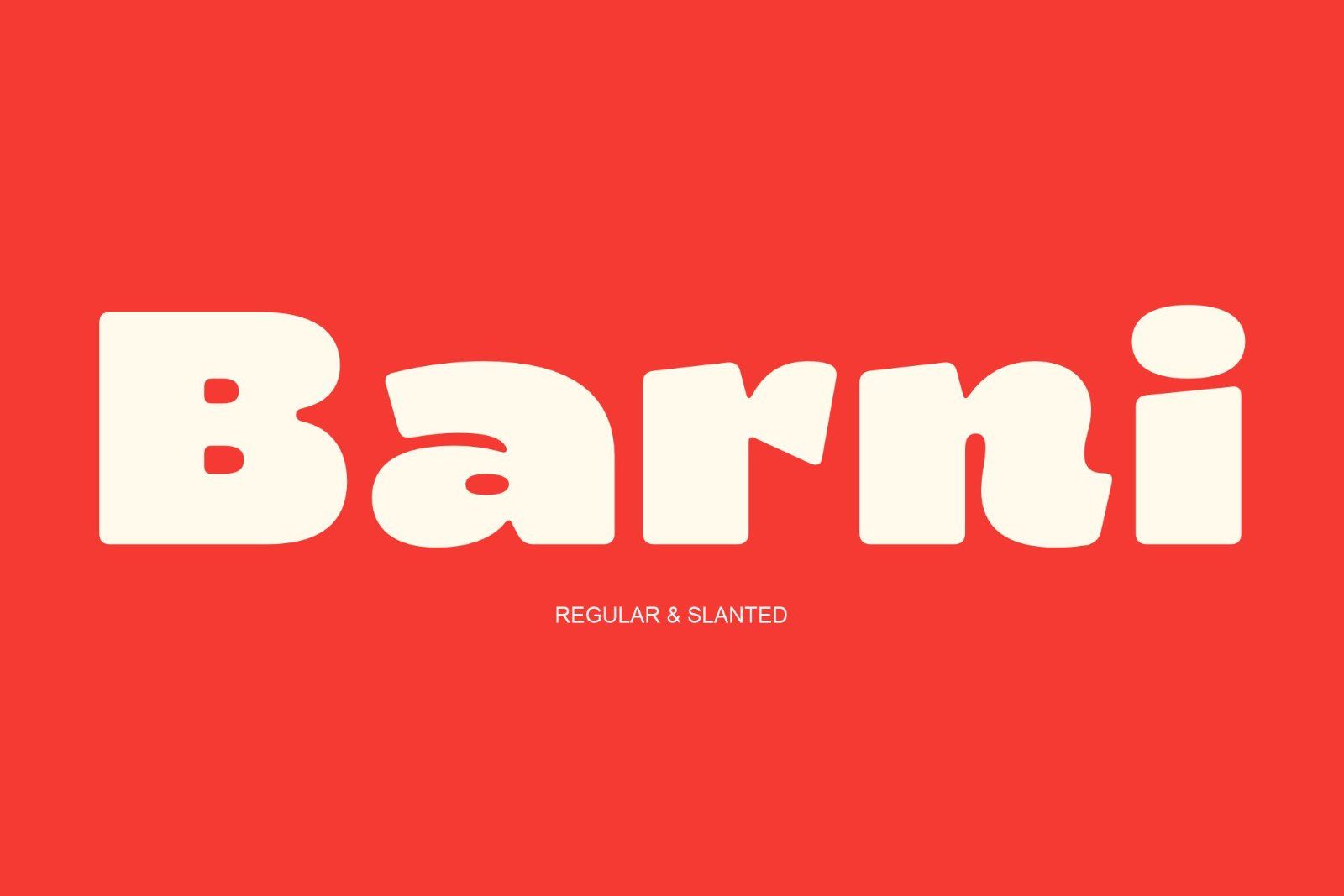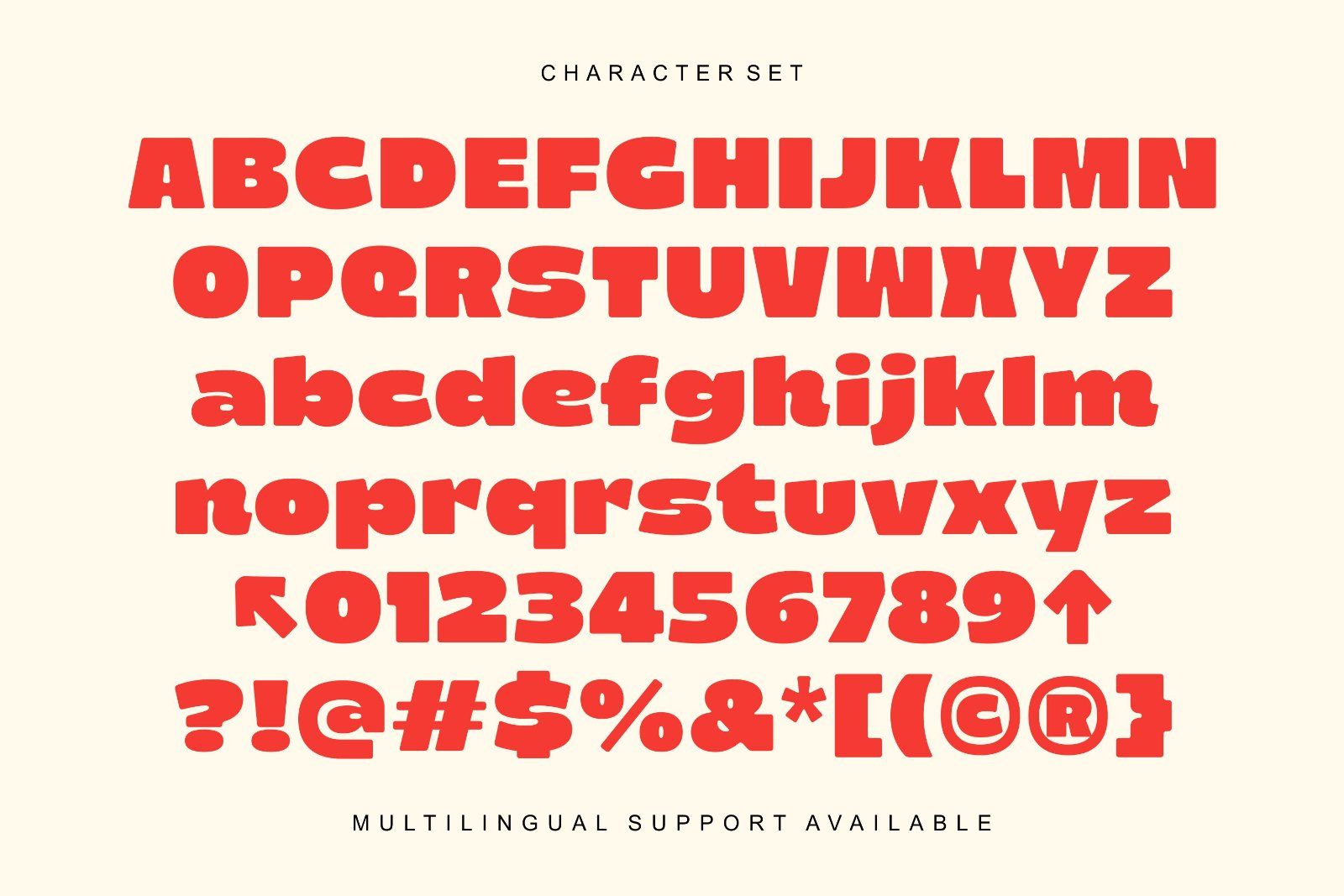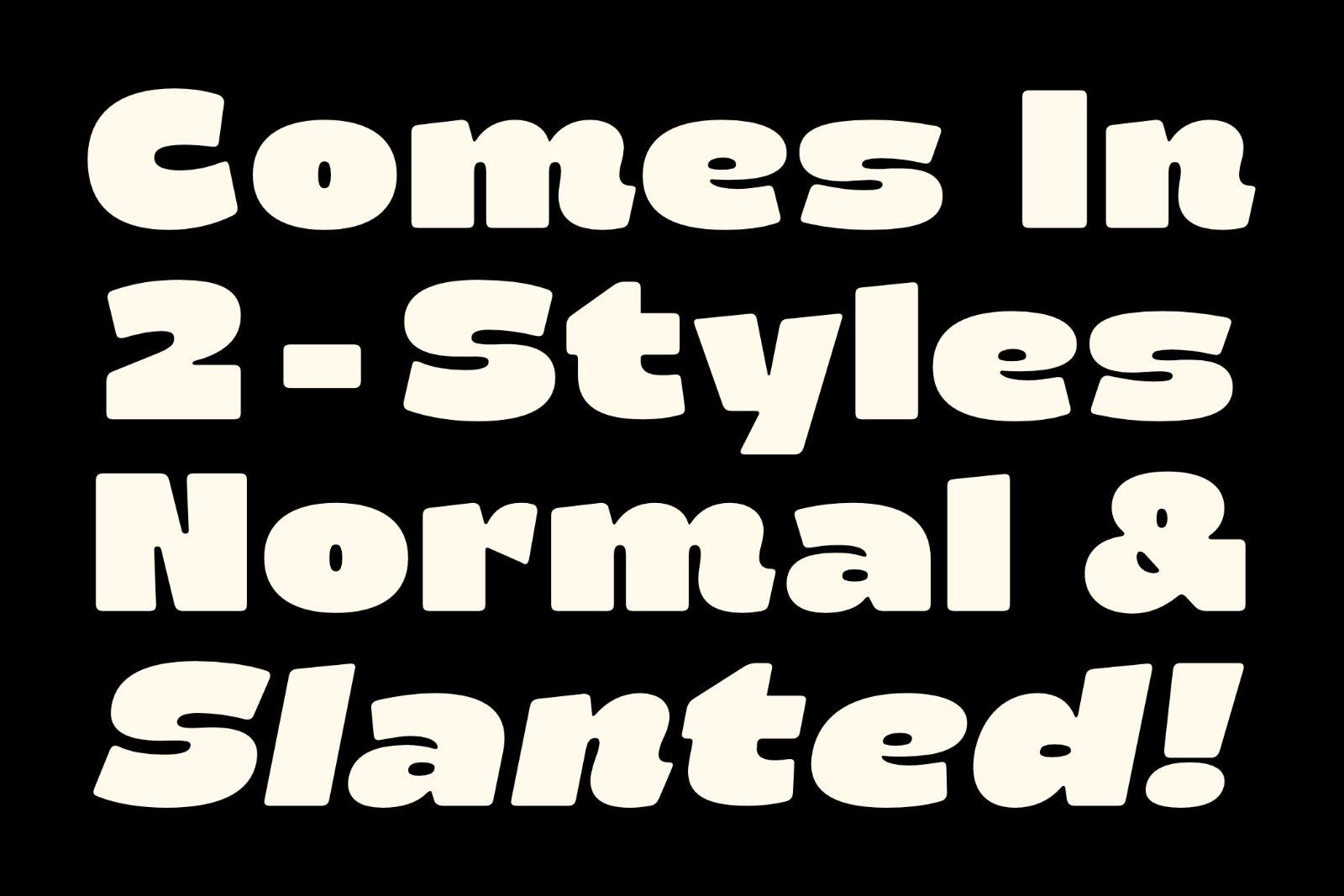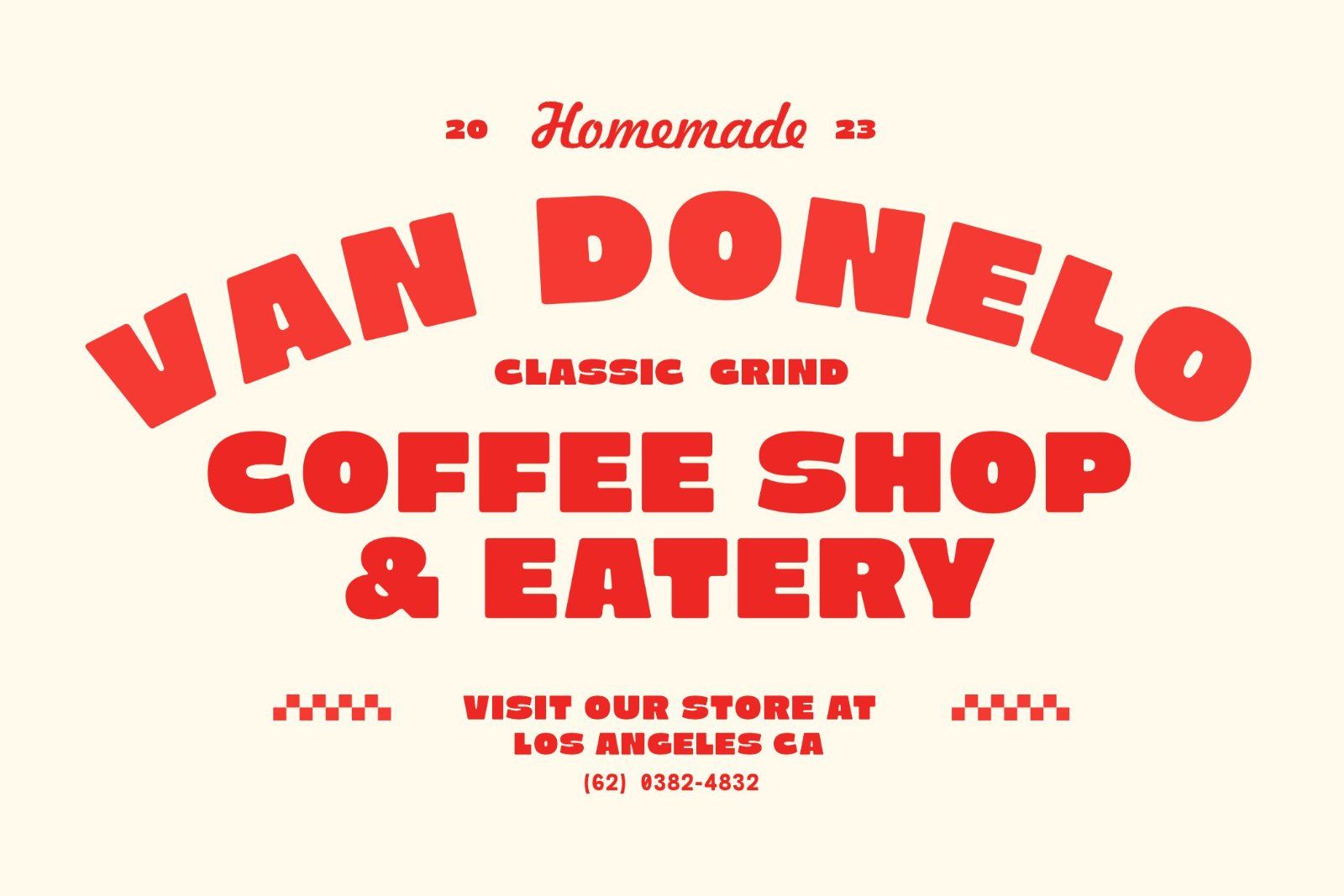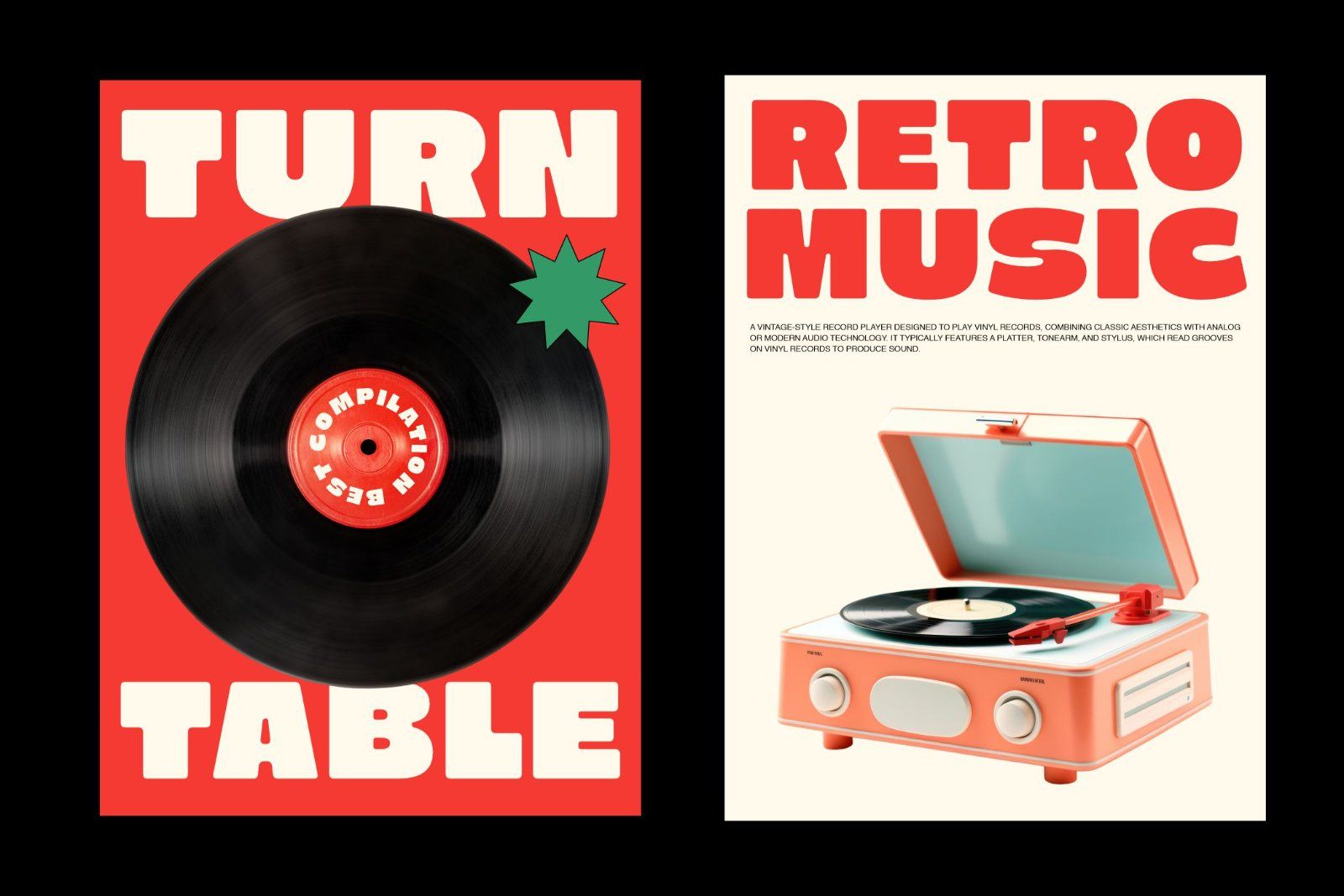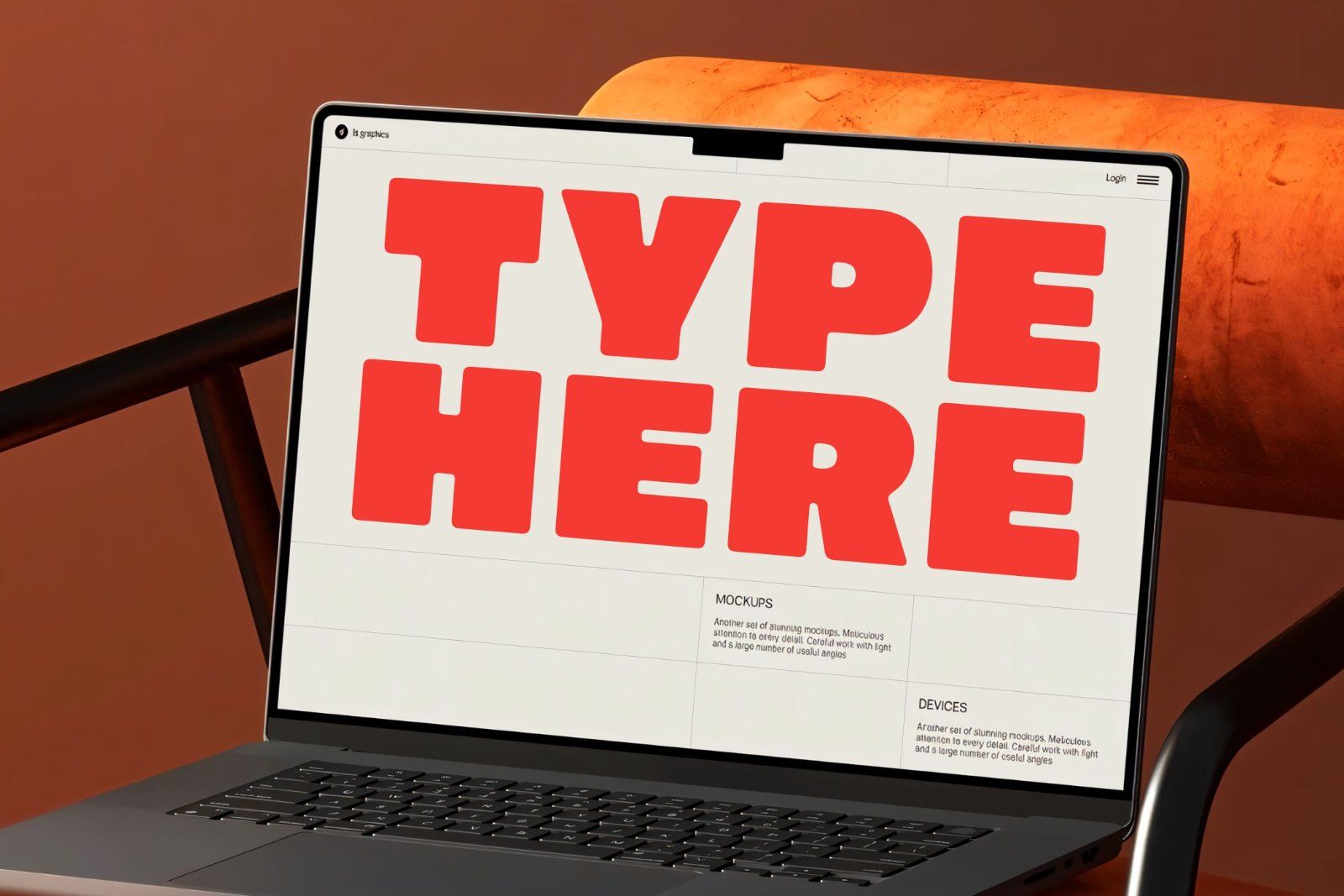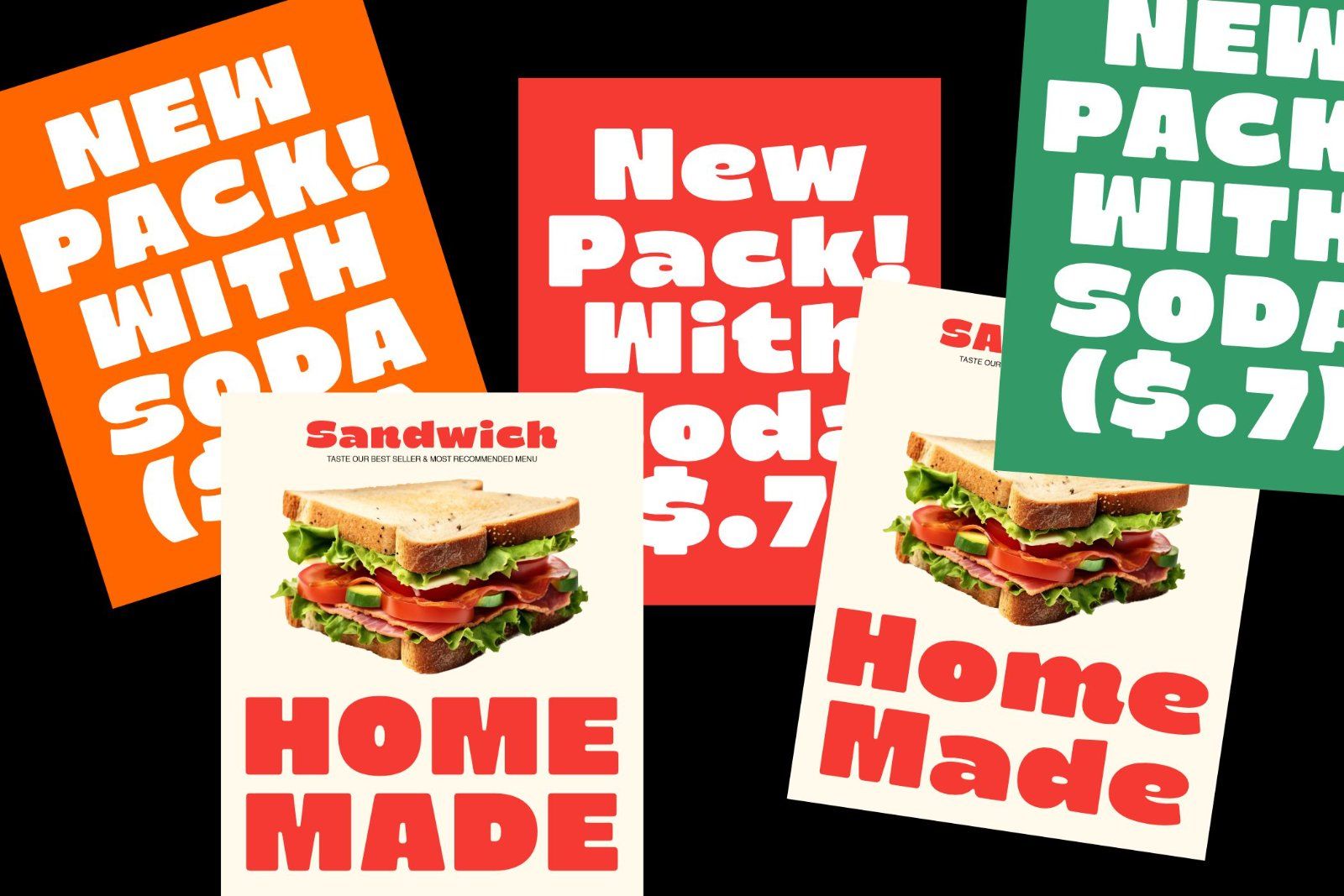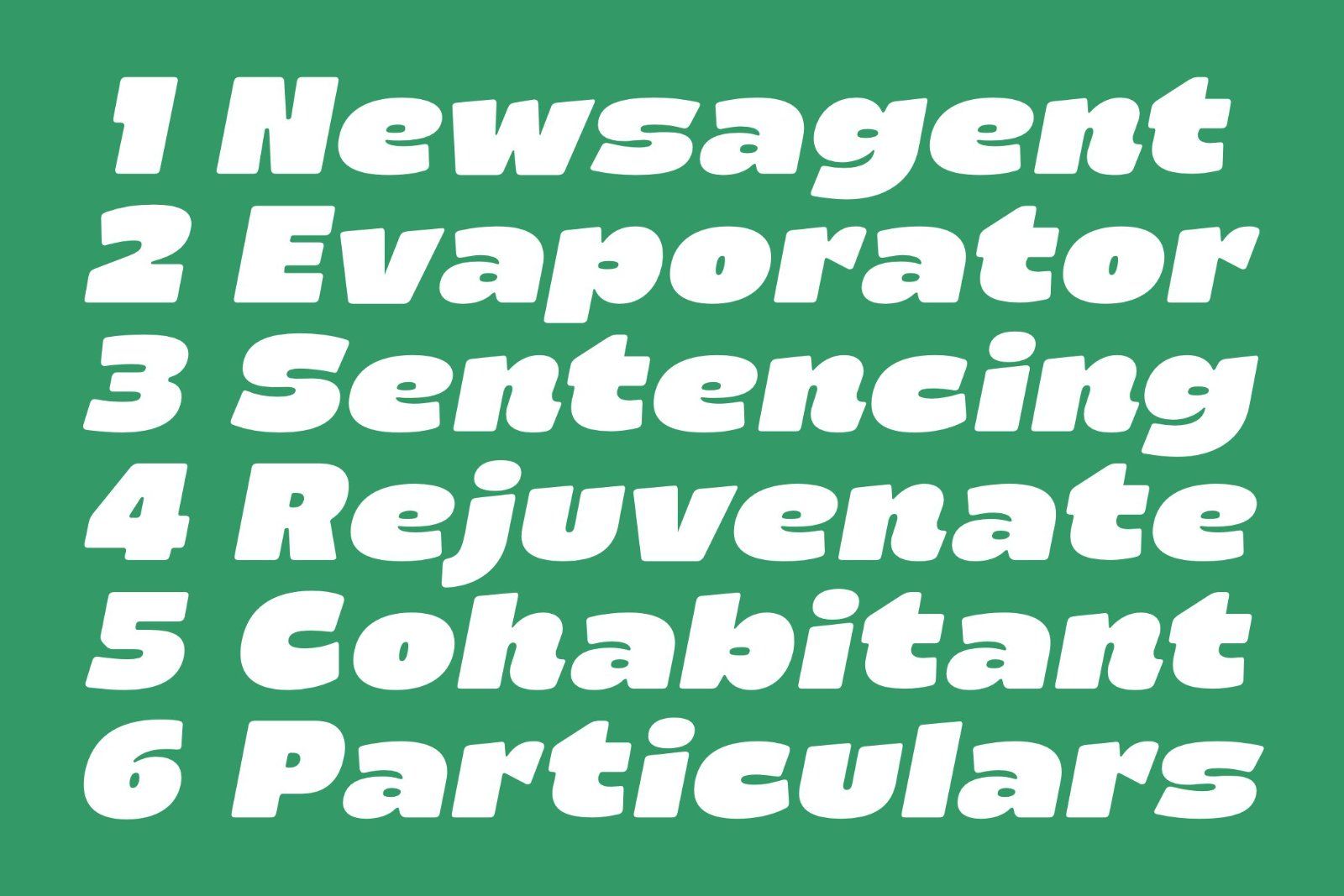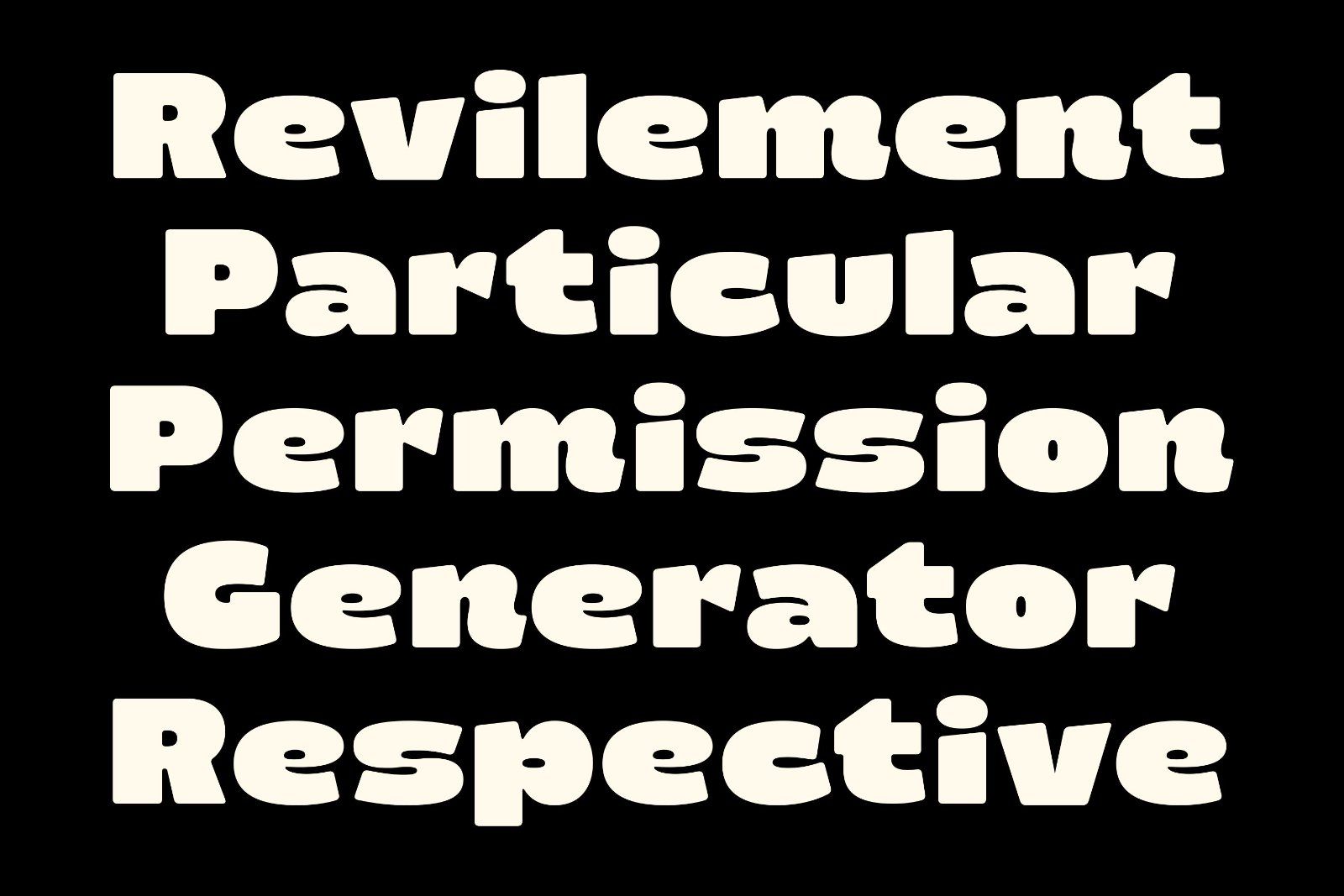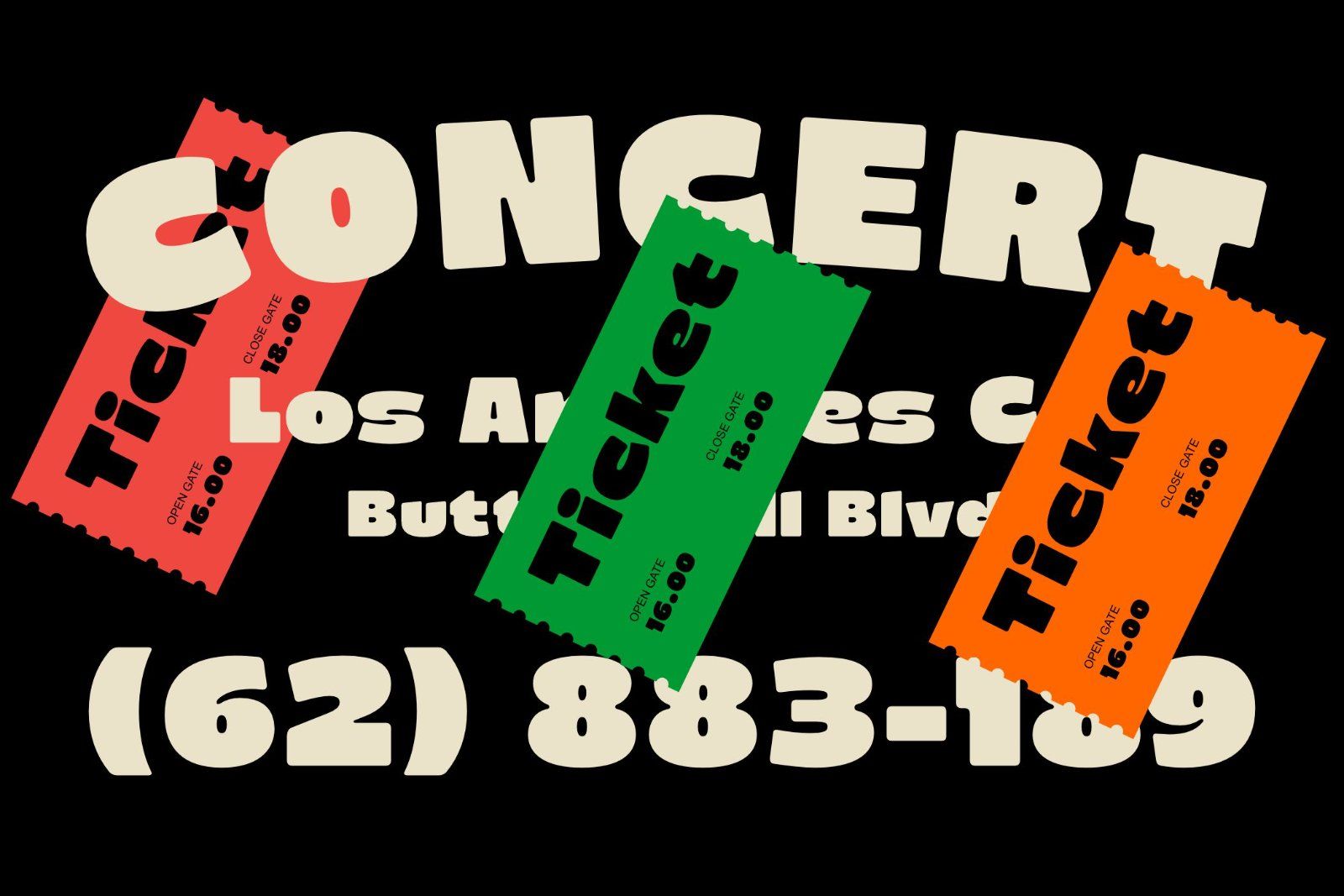
Barni – Bold Retro Groovy Font
A bold and bubbly retro display font inspired by 70s pop culture — perfect for logos, posters, packaging, and vintage branding.
Introducing Barni – Bold Retro Groovy Font
Barni is a bold and bubbly retro display font inspired by the fun spirit of 70s and 80s design. With chunky curves, smooth edges, and playful proportions, Barni brings a nostalgic yet fresh look to your typography projects.
Perfect for logos, posters, food packaging, headlines, coffee shop branding, t-shirts, and social media visuals, Barni instantly gives any design a friendly, confident, and eye-catching vibe.
This font comes in two styles: Regular and Slanted, giving you flexibility to match both vintage and modern aesthetics. It includes uppercase and lowercase letters, numbers, punctuation, and multilingual support, available in OTF, TTF, and WOFF formats.
Barni is ideal for designers who want to capture a retro, groovy, and fun personality — perfect for café menus, retro product packaging, music or fashion branding, and vibrant creative projects that demand attention.